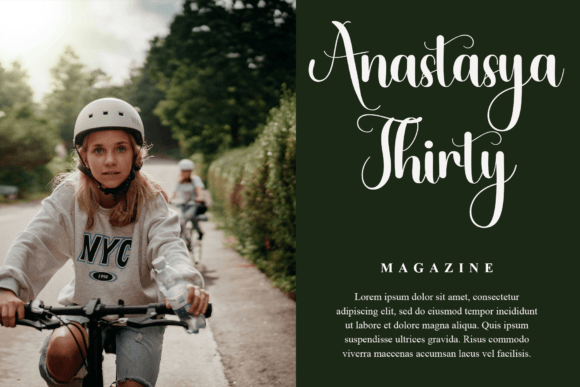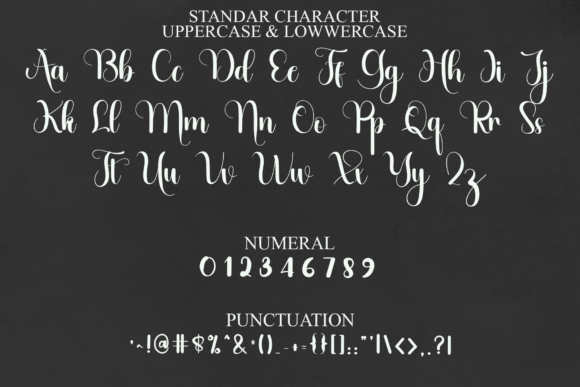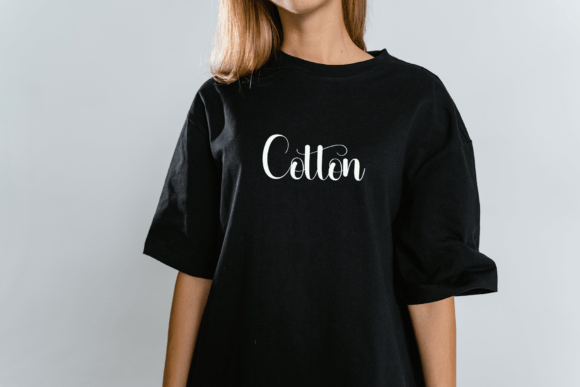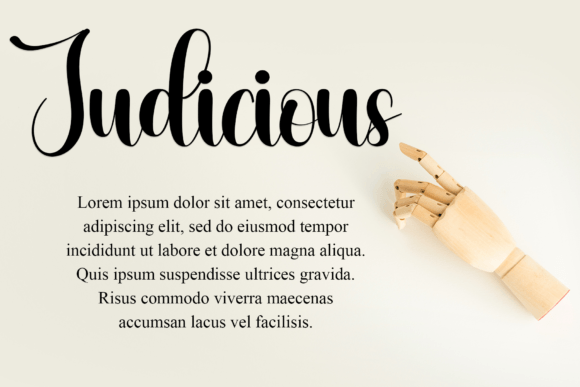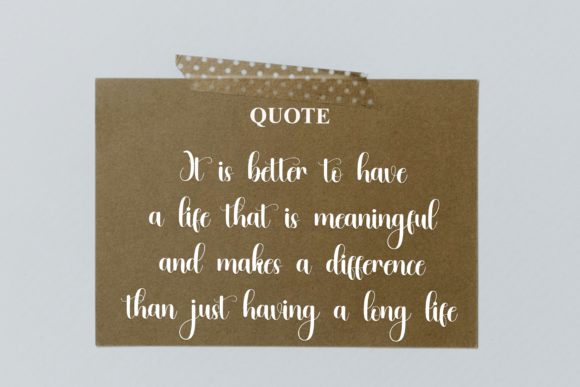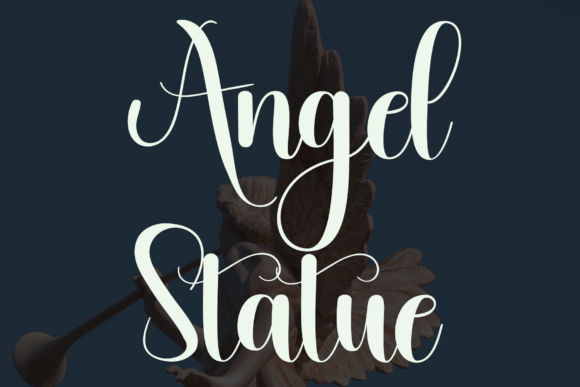
Meet Your New Creative BFF: Angel Font
Have you ever been stuck on a design project, desperately searching for that perfect font to bring your vision to life? I know I have. One moment that stands out in my mind was when I was working on a branding project for a new coffee shop. I wanted the logo to feel approachable, friendly, and inviting – just like a warm cup of coffee on a chilly morning. That’s when I stumbled upon the Angel Font, and everything changed.
The Angel Font is a charming handwritten font that adds a touch of freshness and casual elegance to any design project. Its fluid strokes and organic lines evoke a laid-back vibe, making it perfect for branding, invitations, or social media graphics. Whether you’re a seasoned designer or just starting out, the Angel Font is a valuable addition to your toolkit.
Angel Font Key Features
- Font Style: Script, Calligraphy
- Font Size: 1,040 glyphs, 14,000+ characters
- Unique Characteristics: Elegant, flowing script design with intricate details and flourishes; ideal for wedding invitations, certificates, and other formal documents
- Language Support: Multilingual support for various languages, including Latin, Greek, and Cyrillic scripts
Angel Font Review
Overall, I found the Angel Font to be a pleasant, elegant script font. Here are some of its strengths:
- ✨ Unique, whimsical design that adds a touch of sophistication to any project
- ✨ Beautiful, flowing connections between letters that create a sense of continuity
- ✨ Supports a wide range of languages, making it suitable for international projects
- ⚠️ May not be the best choice for body text, as it can be difficult to read at small font sizes
- ⚠️ May require additional styling to achieve the desired level of contrast and readability
- ⚠️ Limited availability in different weights and styles, which may limit its versatility
Overall, I think the Angel Font is a great choice for projects where a touch of elegance and sophistication is desired. While it may not be suitable for all types of projects, it’s a great option for titles, headings, and other display text.
Angel Font is ideal for creating elegant and whimsical designs. It’s commonly used for:
– Baby shower and birthday party decorations
– Holiday greeting cards and gift tags
– Digital art and illustrations
Getting the Most Out of Angel Font
To get the most out of Angel Font, experiment with different font sizes, colors, and styles. You can also combine Angel Font with other fonts to create a unique and eye-catching design. Additionally, use Angel Font in conjunction with other design elements, such as graphics and images, to create a visually appealing design.
Alternatives to Angel Font
Cream
Cream is a beautiful, elegant font that is perfect for creating a sophisticated and luxurious look. It has a similar feel to Angel Font, but with a more subtle and understated approach. Cream is ideal for use in high-end branding, packaging, and advertising where a touch of elegance is required.
Lobster is a playful, cursive font that is great for adding a touch of whimsy and fun to your designs. It has a similar organic feel to Angel Font, but with a more relaxed and casual vibe. Lobster is perfect for use in creative projects, such as invitations, posters, and social media graphics.
Great Vibes is a modern, elegant font that is perfect for creating a professional and sophisticated look. It has a similar feel to Angel Font, but with a more streamlined and minimalist approach. Great Vibes is ideal for use in corporate branding, business cards, and other professional materials.
Carolyna Pro is a beautiful, elegant font that is perfect for creating a luxurious and sophisticated look. It has a similar feel to Angel Font, but with a more refined and polished approach. Carolyna Pro is ideal for use in high-end branding, packaging, and advertising where a touch of elegance is required.